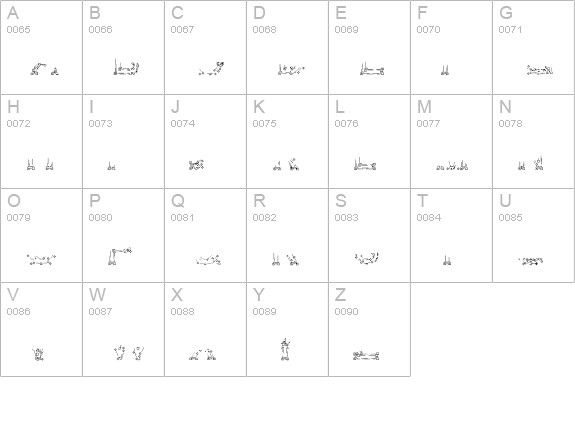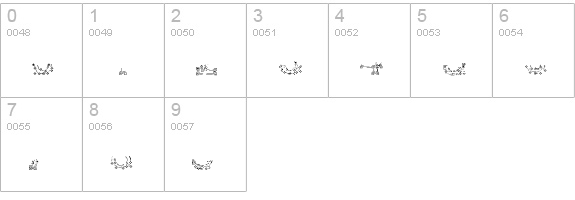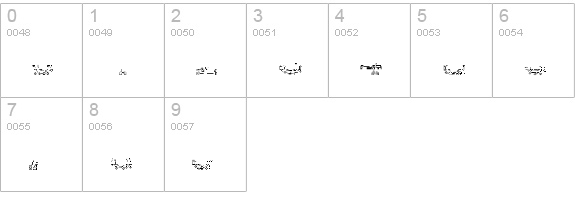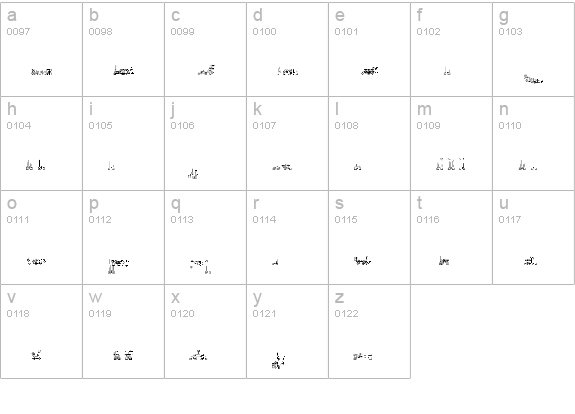
Dotty-1PartOne Font Details
Dotty-1PartOne font is a charming and playful typeface that will add a touch of whimsy to any design project. With its rounded edges and dotted details, this font exudes a sense of fun and creativity. Perfect for use in children's books, greeting cards, or any other project that calls for a lighthearted and approachable font. Best of all, Dotty-1PartOne font is completely free to download at FontsMarket.com! This means you can easily add this delightful font to your collection without breaking the bank. So why wait? Download Dotty-1PartOne font today and let your creativity soar!